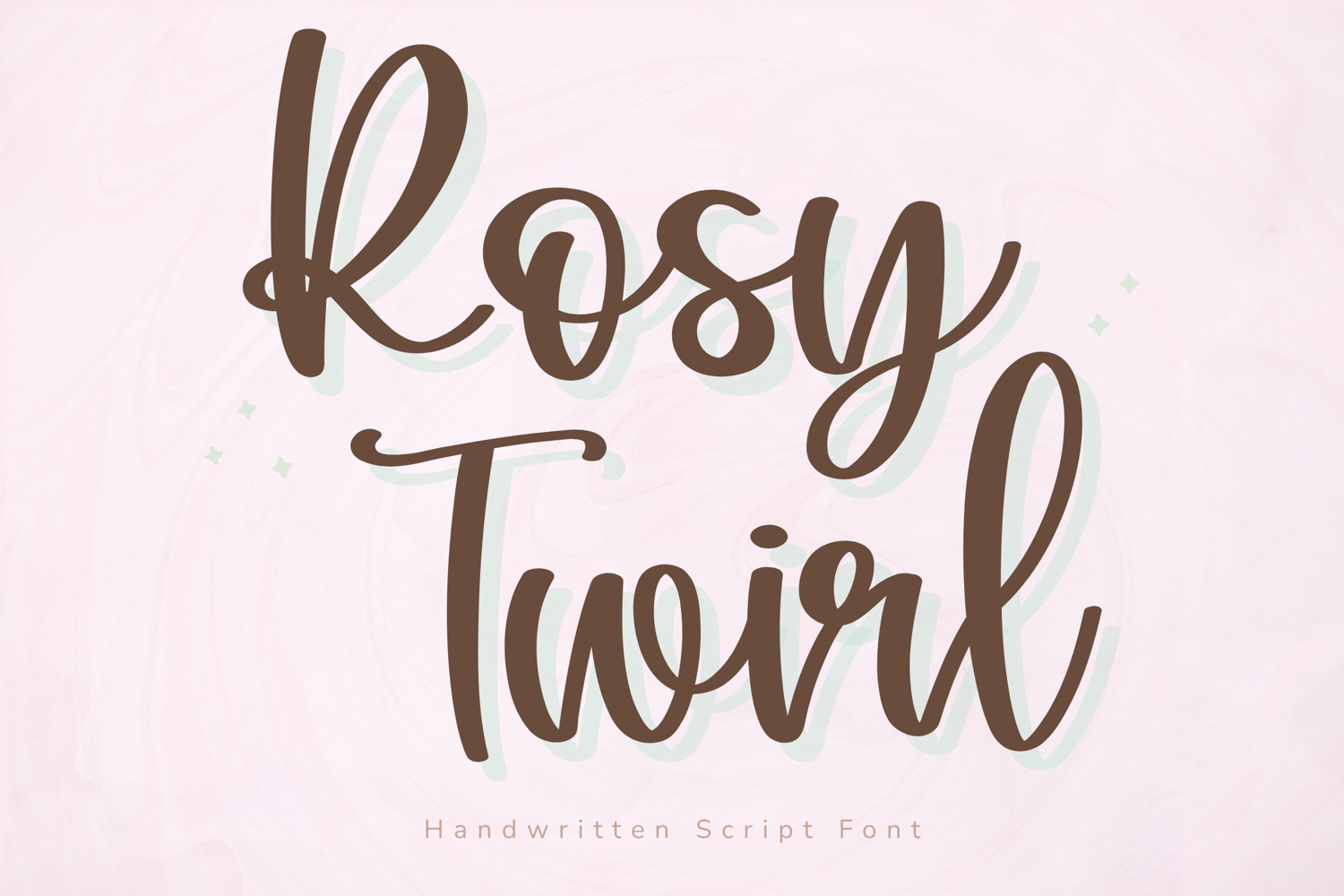
Rosy Twirl - Handwritten Script Font
Rosy Twirl is a charming handwritten script font filled with soft elegance, playful movement, and feminine beauty. With bold rounded strokes, whimsical swashes, and a lively handwritten feel, this font brings warmth and personality to every creative project.
Inspired by blooming roses and graceful twirls, Rosy Twirl is perfect for Cricut crafters, planner lovers, teachers, and owners. Whether you're designing stickers, journals, logos, product packaging, or social media graphics, this font adds a sweet and sophisticated touch.
Key Features:
Uppercase and lowercase letters
Numbers and punctuation
Bold rounded handwritten style
Elegant swashes and loops
Smooth script connections
Perfect For:
Cricut and Silhouette projects
Planner and journal covers
Sticker sheets and printables
Teacher worksheets
Logo & Branding
Product packaging
T-shirt and mug designs
Social media graphics
Wedding and feminine designs
Best Use Cases:
Wedding invitations
Boutique logos
Product labels
Social media graphics
Planner stickers
Journal titles
Brand Mood:
Romantic
Sweet
Playful
Feminine
Elegant
Whimsical
Design Style:
Rosy Twirl combines playful handwritten lettering with elegant looping strokes. The result is a font that feels romantic, cheerful, and highly readable—ideal for feminine and aesthetic designs.